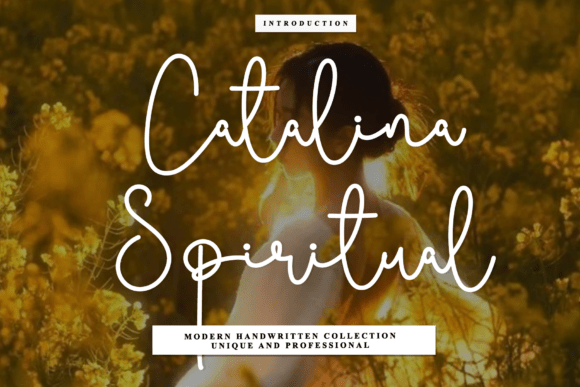
The Quest for the Perfect Font: Discovering Catalina Spiritual
I still remember the design project that led me to Catalina Spiritual. I was working on a branding project for a boutique bakery, and I was struggling to find the perfect font that captured the warmth and artisanal feel of their handcrafted treats. The client wanted a font that was both elegant and approachable, with a touch of whimsy. After hours of searching, I stumbled upon Catalina Spiritual, and it was love at first sight. The sweeping, looping ascenders and the warm, organic aesthetic won me over, and I knew I had found the perfect fit.
An Honest Review of Catalina Spiritual
• ✨ The unique, calligraphic style that adds a touch of sophistication to any design
• ✅ The warm, organic aesthetic that evokes a sense of artisanal craftsmanship
• 💫 The versatility of the font, which works well for both digital and print applications
• 🎨 The extensive range of OpenType features, glyphs, and stylistic alternates that allow for endless creativity
While Catalina Spiritual is an amazing font, it’s not without its quirks. Here are a few things to keep in mind:
• 🤔 The font can be a bit finicky when it comes to kerning, so be sure to adjust the spacing to get the best results
• ⚠️ The looping ascenders can sometimes clash with certain design elements, so be mindful of the overall composition
The Designer Inspiration Behind Catalina Spiritual
Catalina Spiritual was inspired by the artisanal craftsmanship of the Catalina Islands. The font’s designer wanted to capture the essence of the islands’ unique culture and blend it with a modern, sophisticated aesthetic. The result is a font that is both elegant and approachable, with a touch of whimsy.
Font Name Catalina Spiritual Font
Author pinkmeca
Q: What is the best way to use Catalina Spiritual in my design?
A: The best way to use Catalina Spiritual is to experiment with its OpenType features, glyphs, and stylistic alternates. This will allow you to create a unique and customized design that showcases the font’s versatility.
Q: Is Catalina Spiritual suitable for body text?
A: While Catalina Spiritual is a beautiful font, it’s best suited for headlines and titles. For body text, you may want to choose a font that is clearer and more legible.